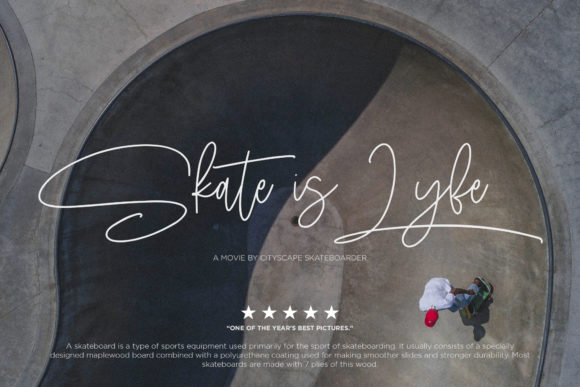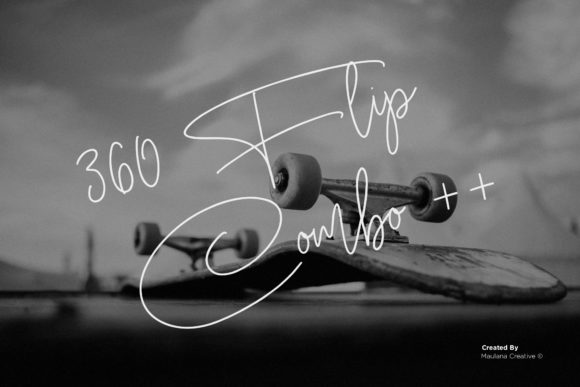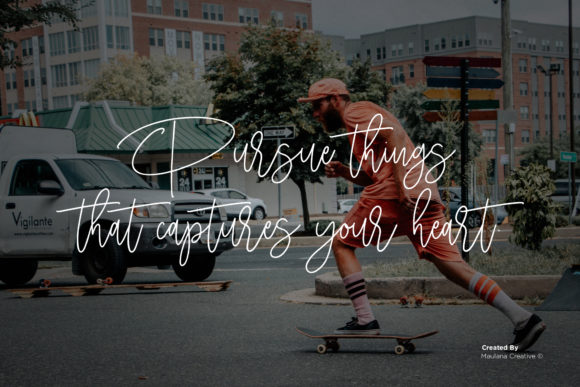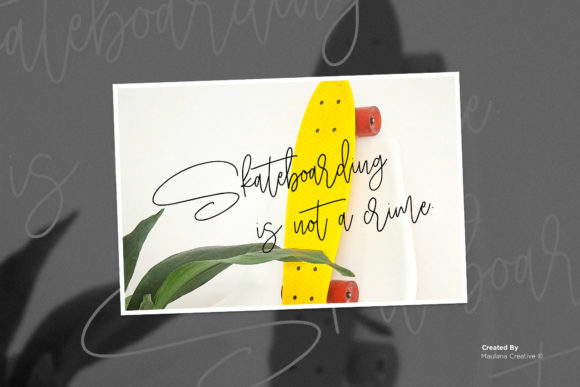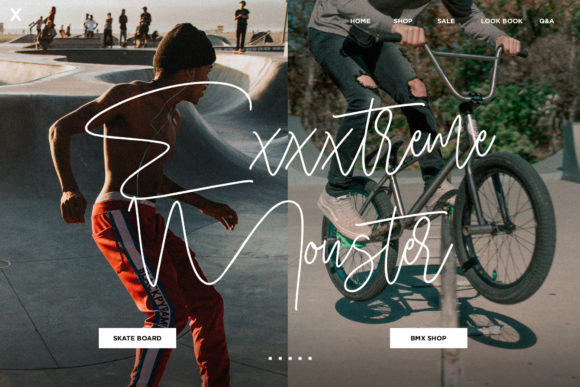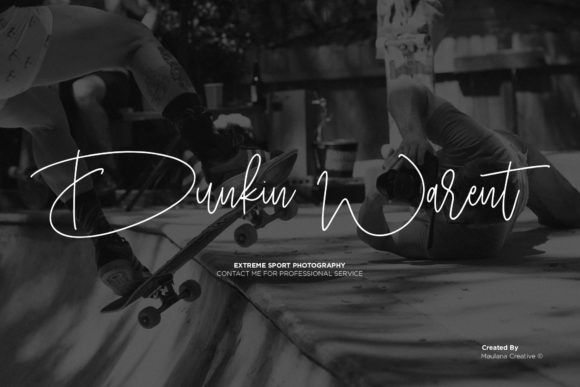
Give Your Designs a Handcrafted Touch
Remember that moment when a spark of creativity strikes, and you envision the perfect design for your next project? The thrill of bringing that idea to life is exhilarating, but sometimes, the right font can make all the difference. You’ve poured your heart into crafting a beautiful concept, and yet, it’s missing that special something that sets it apart from the rest.
That’s where Hobbies Font comes in – a unique signature font that imbues your designs with an authentic handcrafted feel. With Hobbies Font, you can add a touch of personality and warmth to your creations, making them truly unforgettable. Whether you’re a seasoned designer or just starting out, this versatile font is a valuable addition to your toolkit, allowing you to express your creativity and bring your vision to life in a way that truly stands out.
Hobbies Font Key Features
- Unique Characteristics: The font features a playful, handwritten style with a mix of bold and cursive elements, making it ideal for creative projects, such as invitations, posters, and social media graphics.
Hobbies Font Review
I recently had the chance to work with the Hobbies Font, and I must say it’s been an interesting experience. While it has some unique qualities, it also has its limitations. Let’s dive in and see what I think.
- The Hobbies Font has a great retro vibe that’s perfect for vintage-themed projects or designs that need a nostalgic feel.
- The font is highly customizable, with a wide range of styles and variations available, making it easy to find the perfect look for your project.
- The font is well-suited for headings and titles, as it has a clear and distinctive structure that makes it easy to read.
- The font can be quite busy, with a lot of intricate details that may be distracting or hard to read at smaller sizes.
- The font may not be the best choice for body text, as it can be quite dense and tiring to read in large quantities.
- The font is not suitable for all languages, as some characters may not be supported or may appear distorted.
Overall, I think the Hobbies Font is a great choice for projects that need a unique and nostalgic feel. While it has some limitations, it’s a great option for designers who want to add a touch of personality to their work.
Hobbies Font is ideal for creating visually appealing text elements for:
- Blog posts and articles.
- Social media posts and graphics.
- Infographics and presentations.
- Website headers and footers.
Remember to use Hobbies Font in moderation and in combination with other design elements to create a visually appealing and effective design